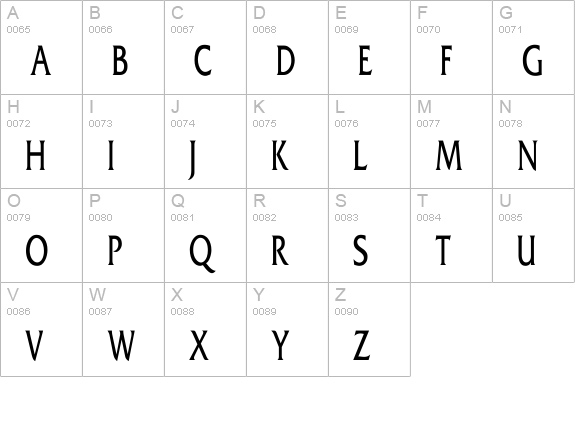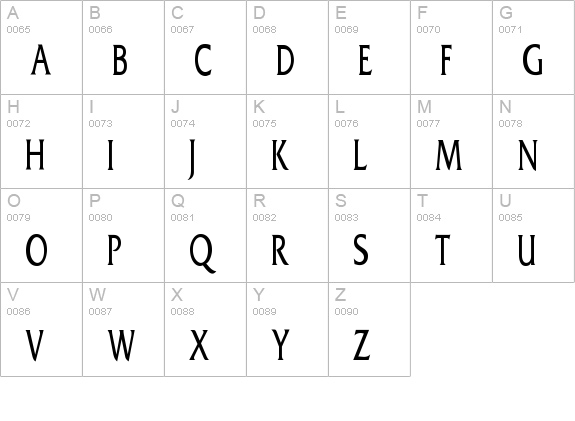
Franz Narrow Font Details
Franz Narrow is a distinctive, condensed-width variant in the Franz typeface family \xE2\x80\x94 well suited to design and typography projects.
Introducing Franz Narrow font - a sleek and modern typeface that exudes sophistication and elegance. With its slender letterforms and clean lines, Franz Narrow is perfect for adding a touch of refinement to any design project. This versatile font is ideal for both headlines and body text, making it a great choice for a wide range of applications. The best part? Franz Narrow is available for free download at FontsMarket.com. Whether you're working on a branding project, editorial design, or web content, this font is sure to elevate your work with its timeless appeal. Don't miss out on the opportunity to enhance your designs with this exquisite typeface - download Franz Narrow today and take your creations to the next level.